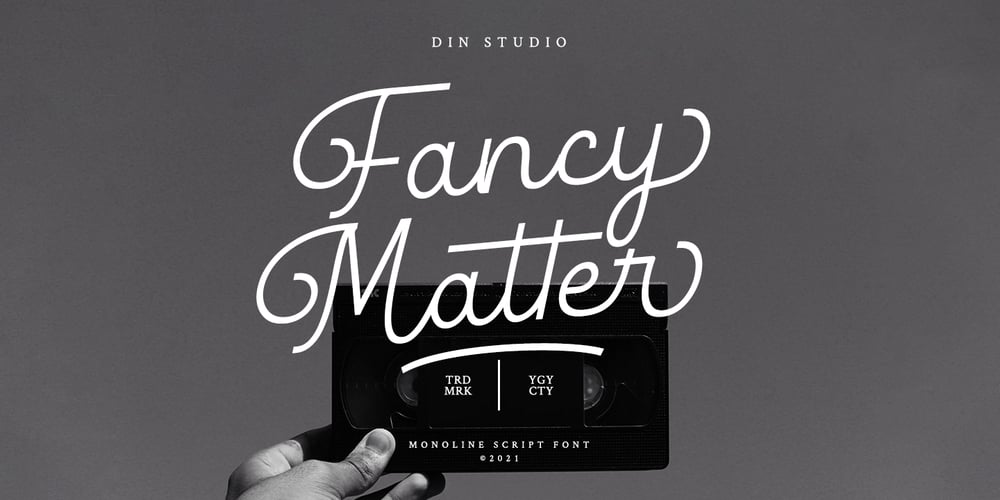
Fancy Matter
Fancy Matter font
Fancy Matter Font Family was designed by Donis Miftahudin and published by Din Studio. Fancy Matter contains 1 styles and family package options. Hi, Everyone! Dreaming of a fancy things? Want to travel your audience or customer to a fabulous, beautiful, and elegant world ? Introducing Fancy Matters- A Monoline Signature FontA fancy and elegant handcrafted font that create to impress your audience and make your branding shine. Make your projects dance with this elegant and wonderful font wherever you use it. Use it for your headings, logos, ads, printed quotes, packaging, and even your website or social media branding. Our font always includes Multilingual option to make your branding reach a global audience. Features: Standard Ligature Stylistic Sets Swashes Multilingual Support (84 languages) PUA Encoded Numerals and Punctuation Thank you for downloading premium fonts from Din Studio